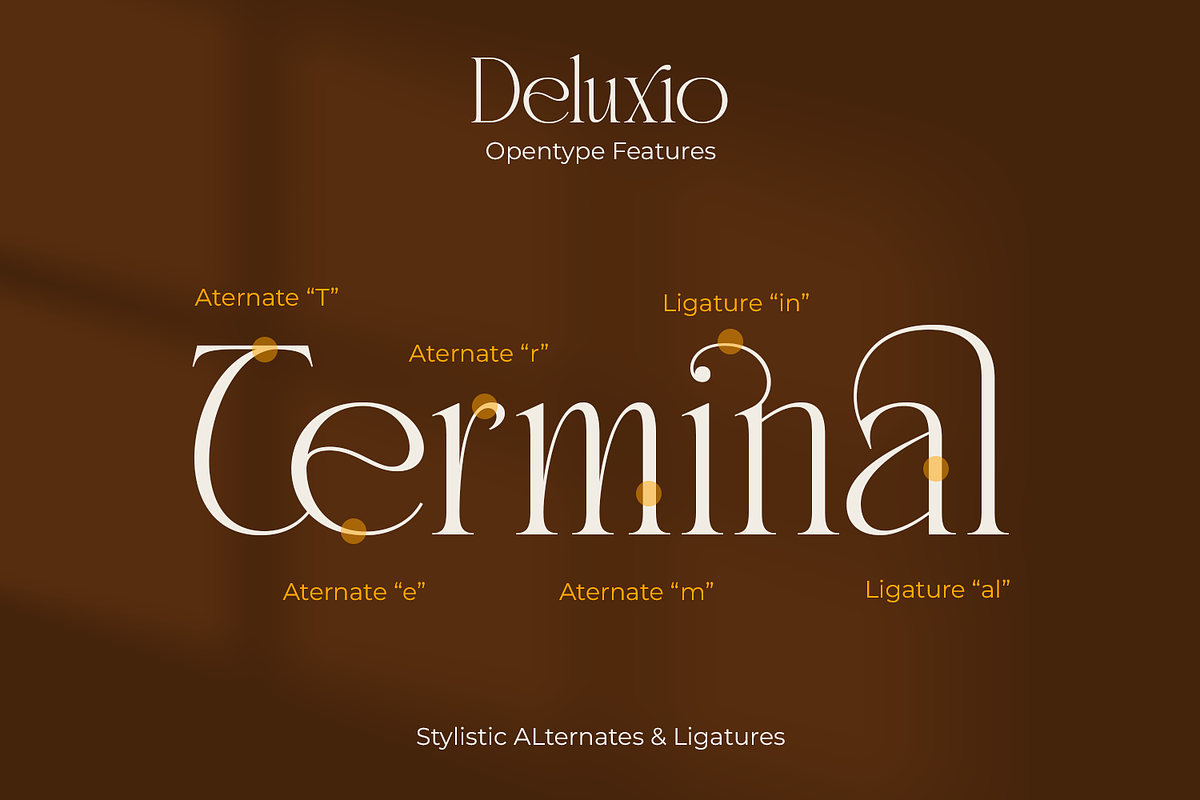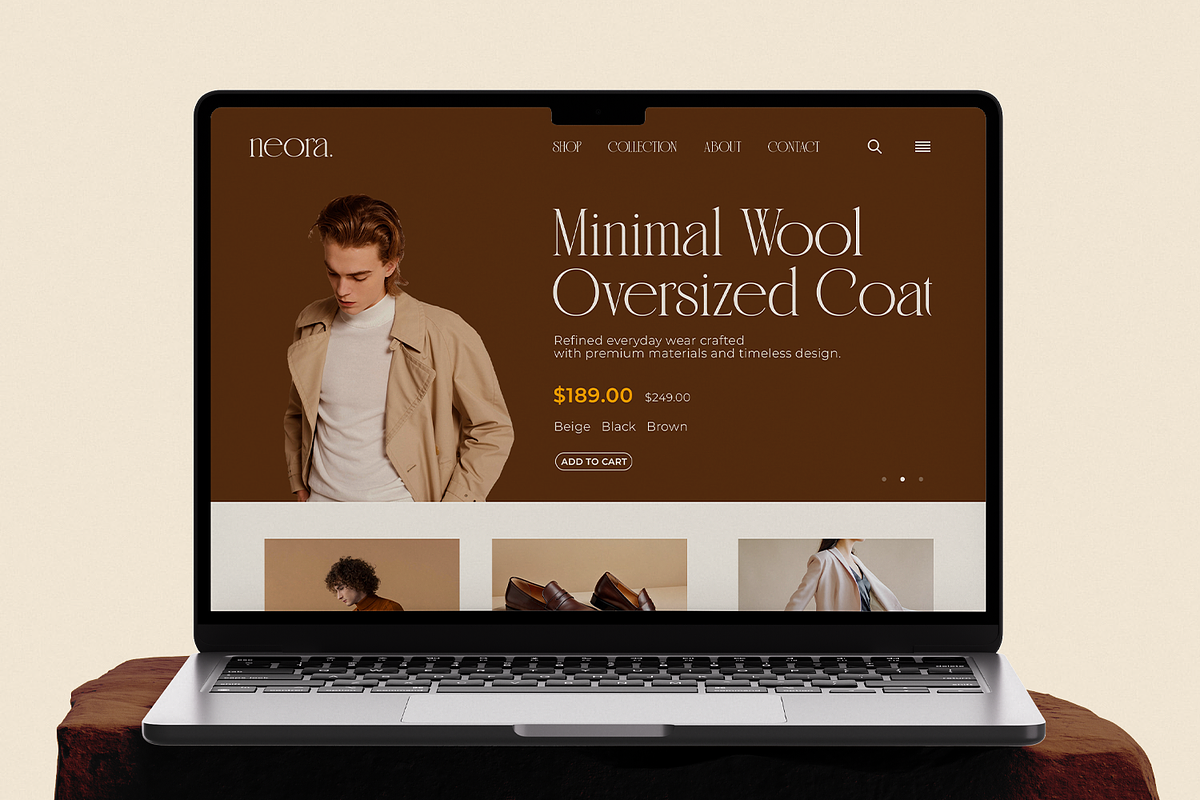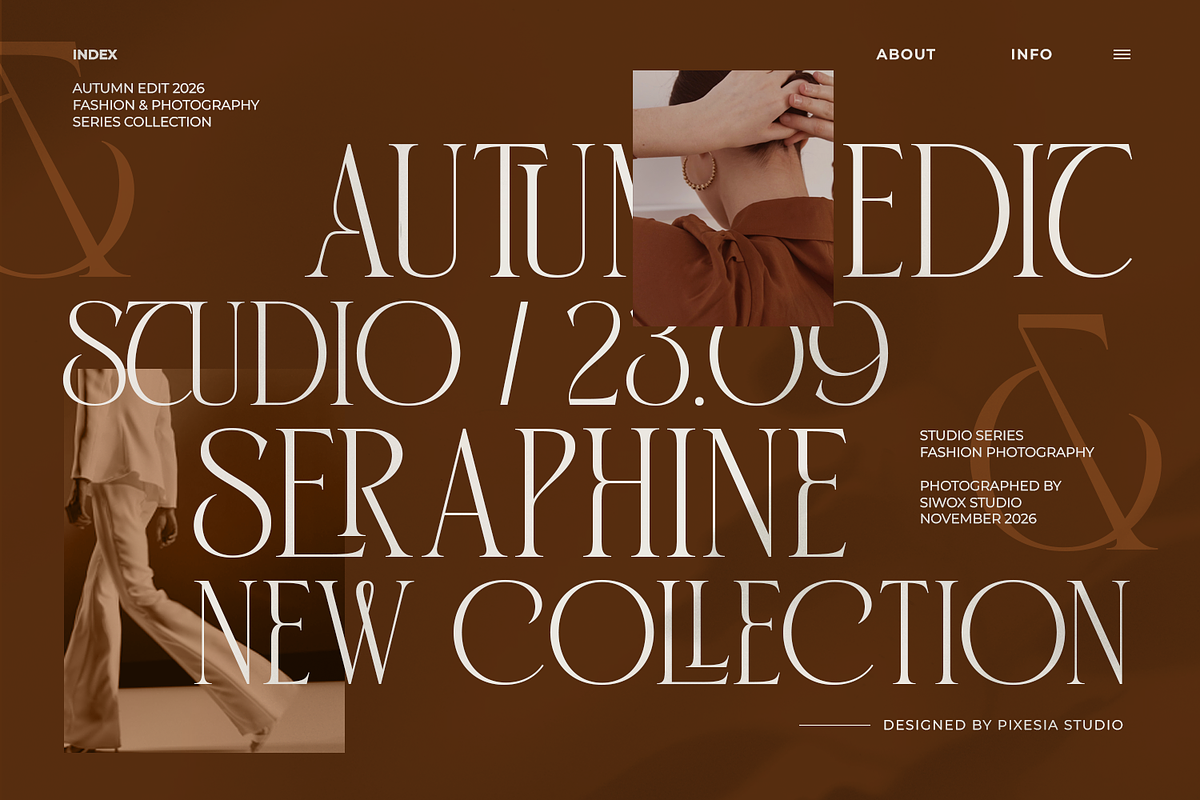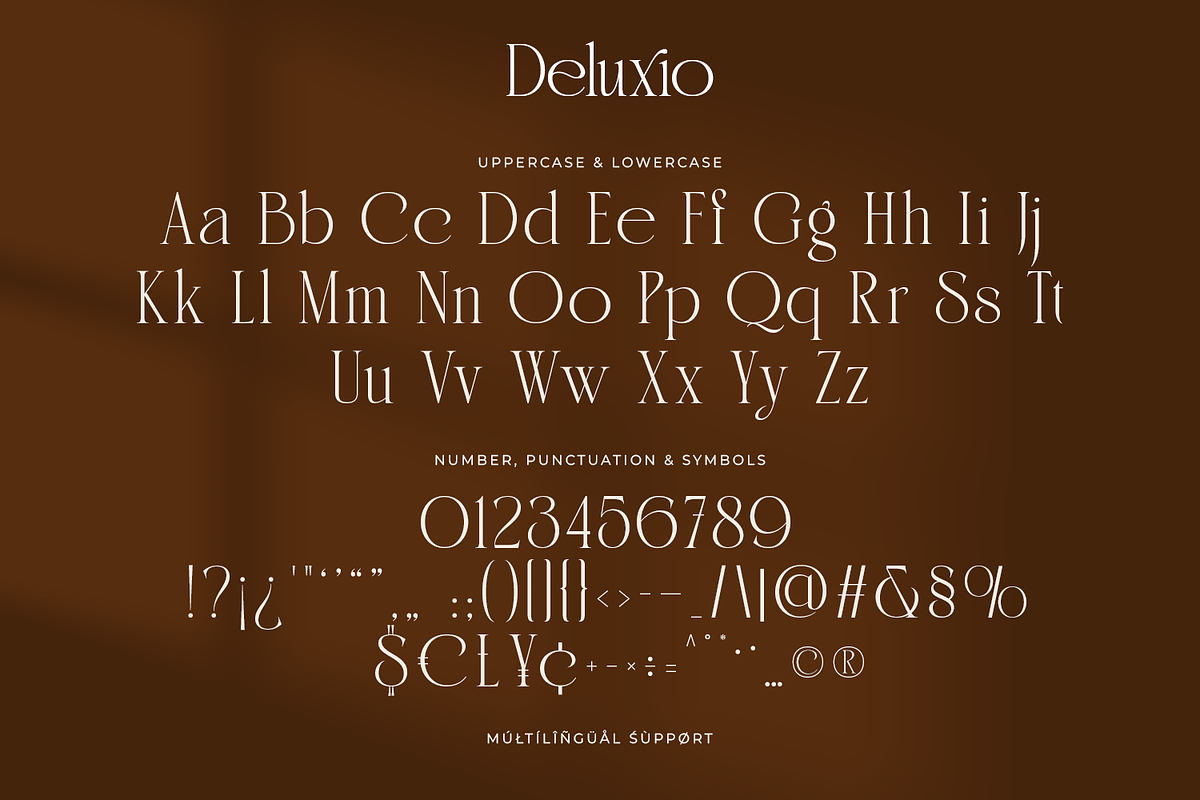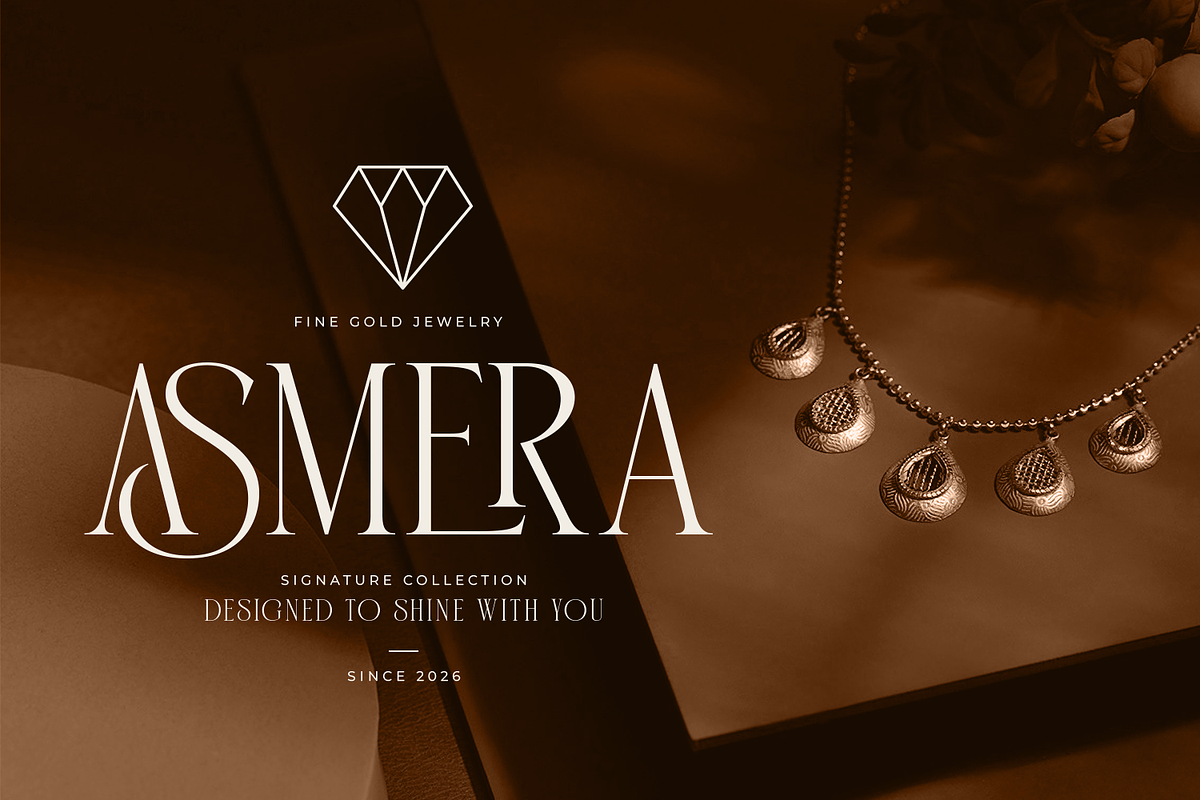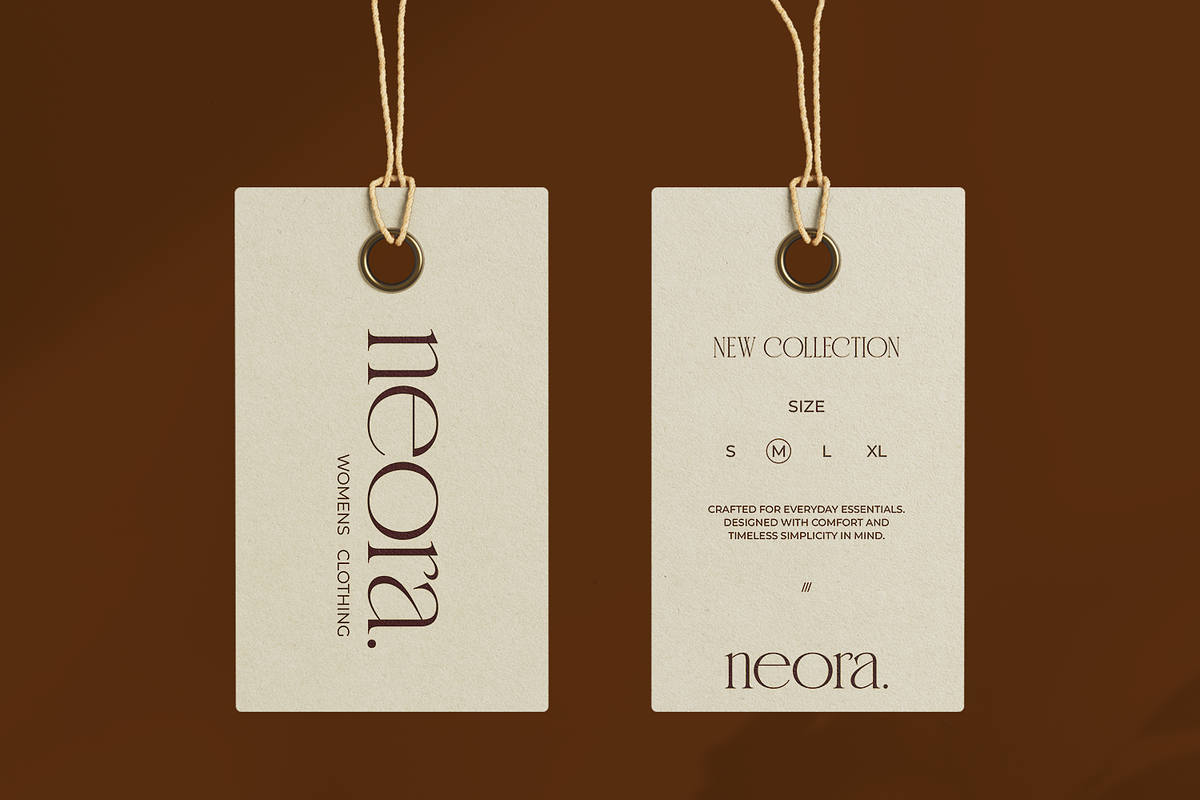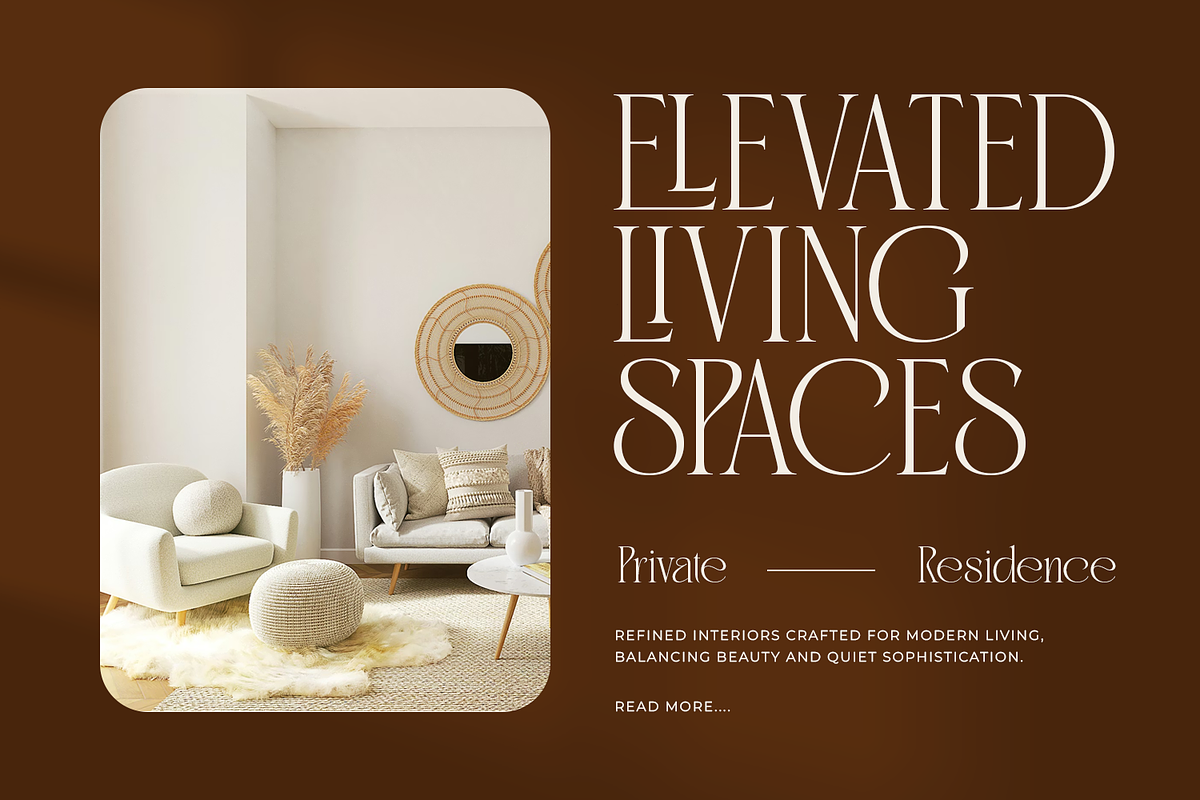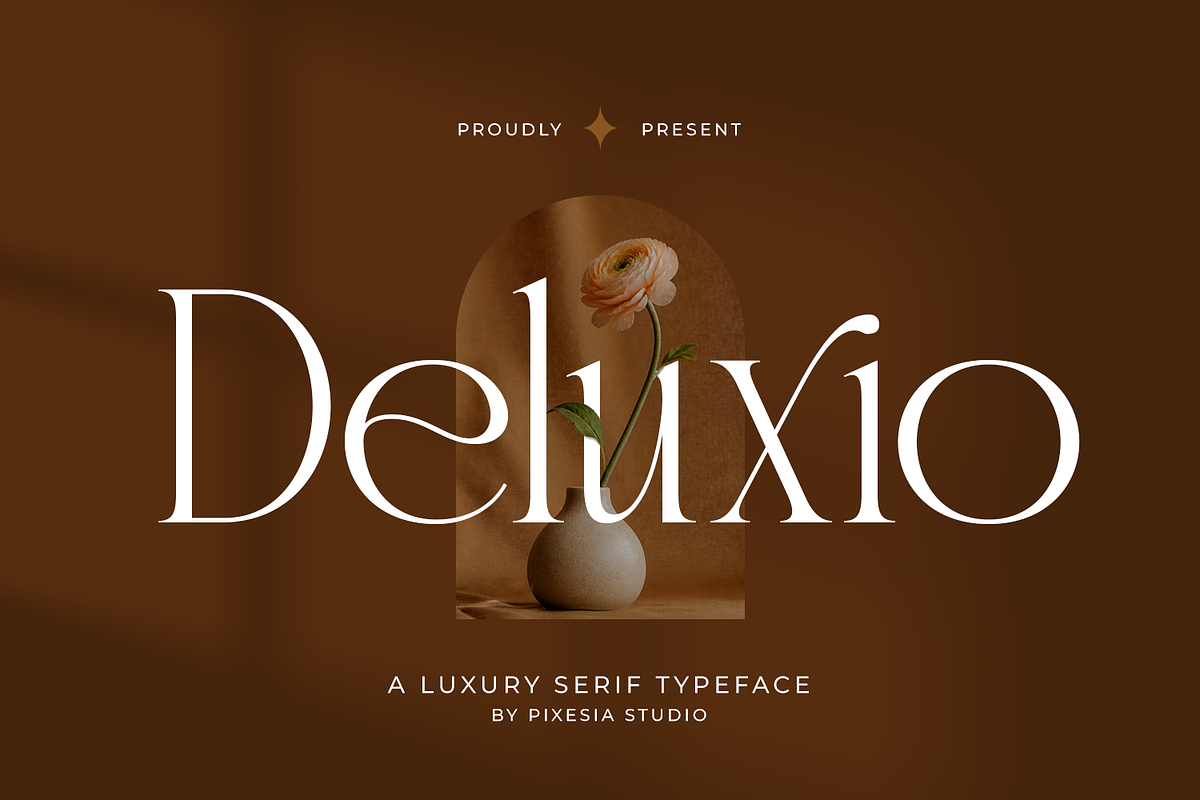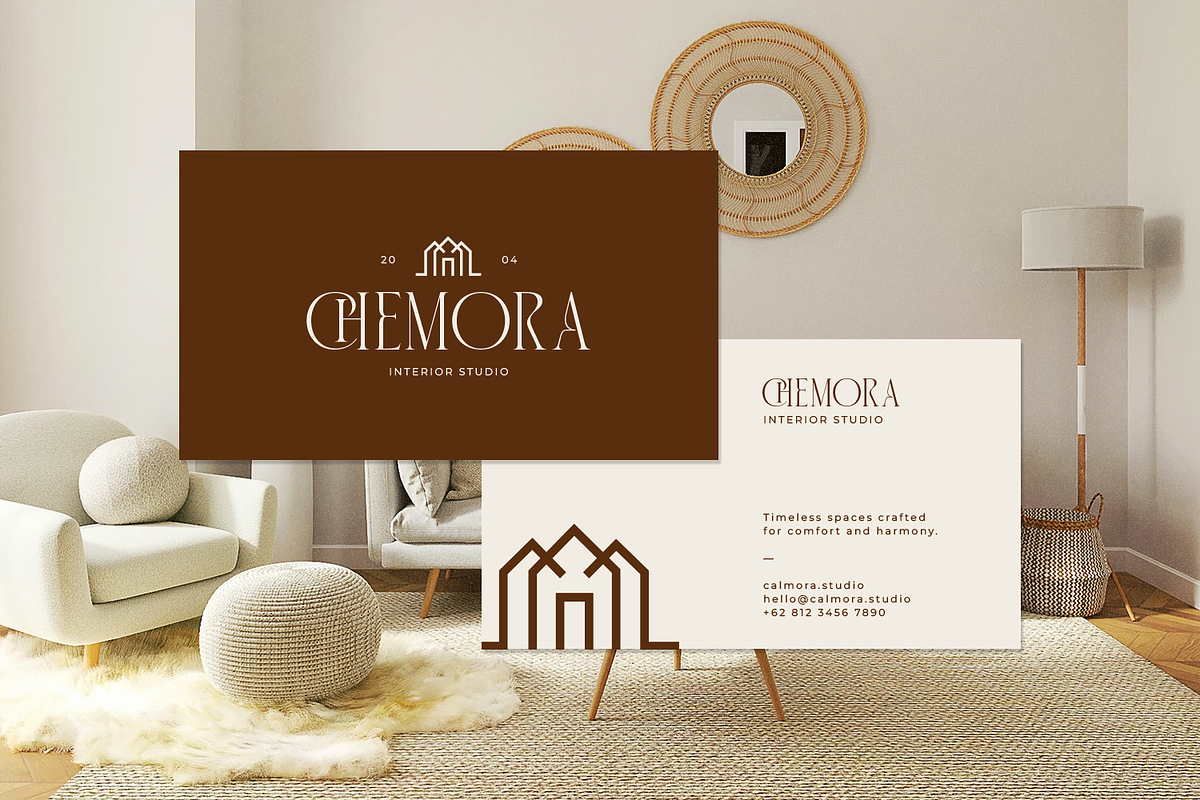
Deluxio - Modern Luxury Serif Font
Introducing Deluxio - Modern Luxury Serif Font
Deluxio is a luxury serif typeface crafted to deliver elegance, balance, and timeless sophistication. With its refined letterforms, smooth curves, and high-contrast strokes, this font exudes a premium aesthetic that feels both modern and classic. Every detail is carefully designed to create a graceful and polished visual identity.
Perfect for branding, logos, labels, photography, advertising, product packagaing, stationery, wedding invitations, fashion projects, social media, editorials, fashion designs, and upscale marketing materials, Deluxio adds a touch of luxury and professionalism to any project. Whether you're building a high-end brand or designing stylish layouts, this typeface offers clarity, elegance, and a beautifully refined presence.
PUA Encoded Characters - Easily accessible without additional design software.
Multilingual Support including Afrikaans, Albanian, Basque, Catalan, Danish, Dutch, English, Estonian, Faroese, Filipino, Finnish, French, Galician, German, Icelandic, Indonesian, Irish, Italian, Malay, Norwegian Bokmål, Portuguese, Spanish, Swahili, Swedish, Zulu